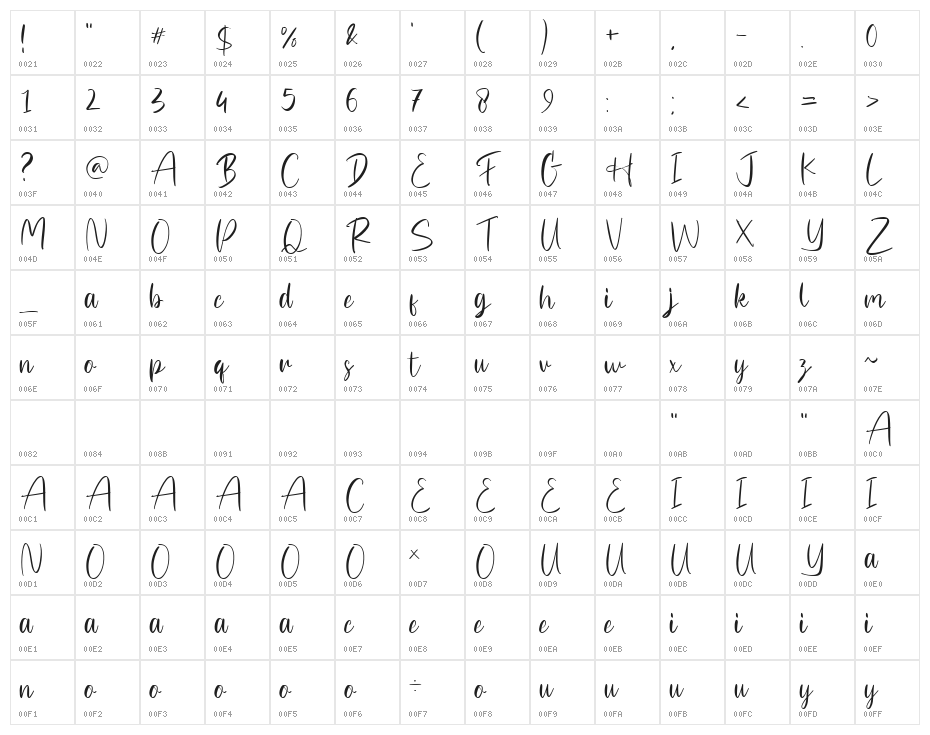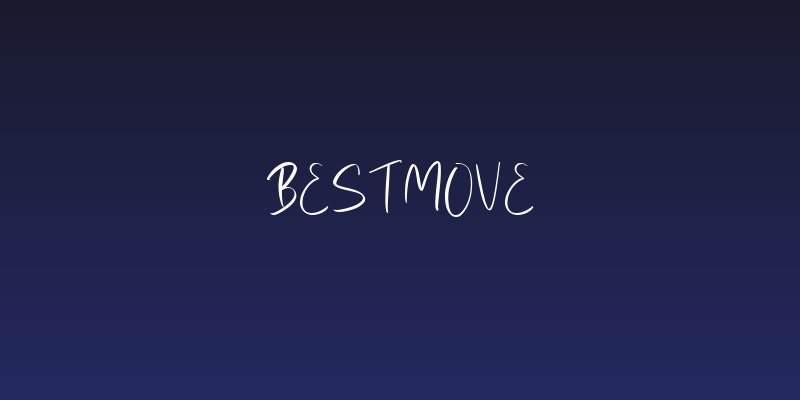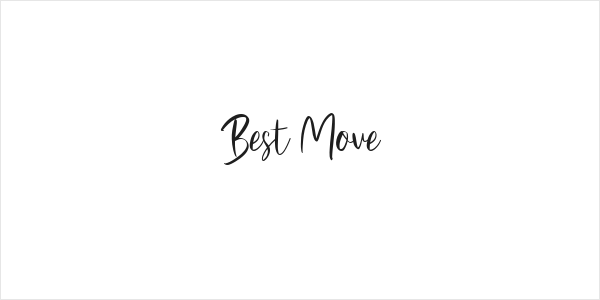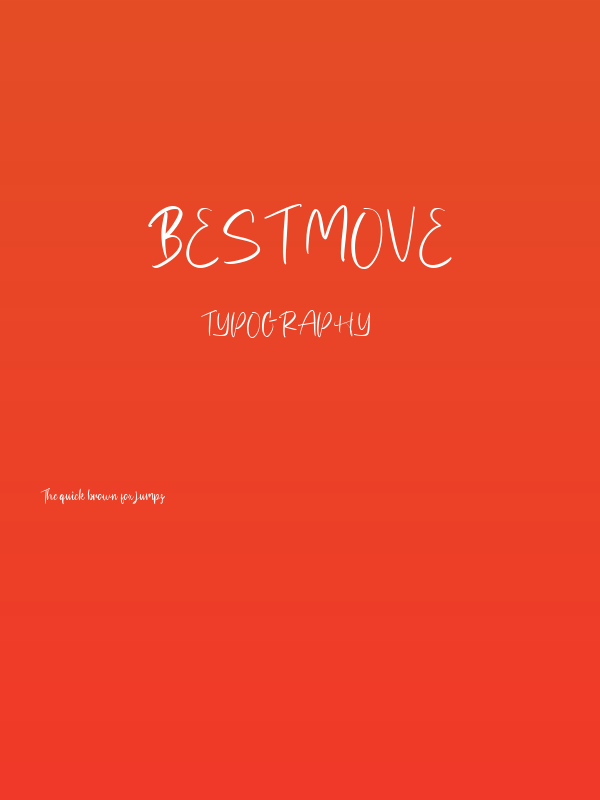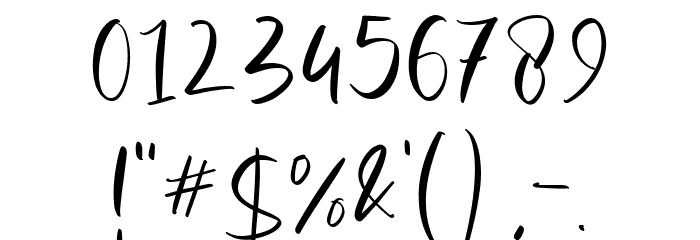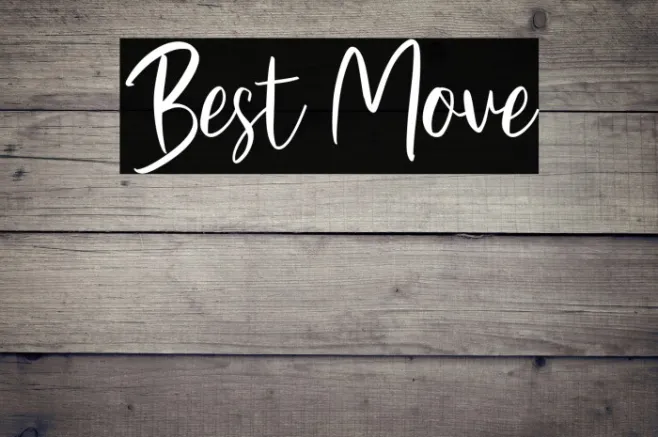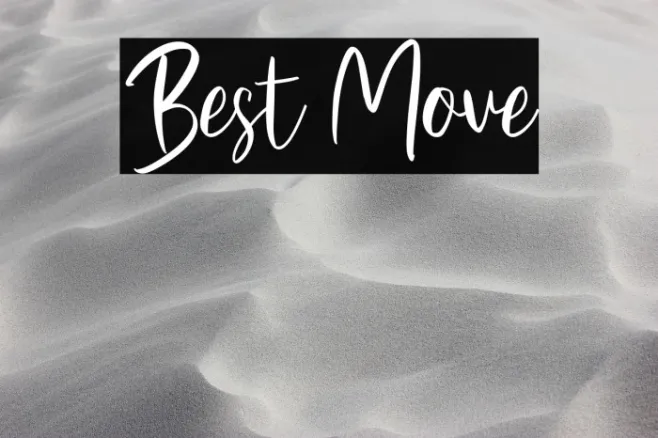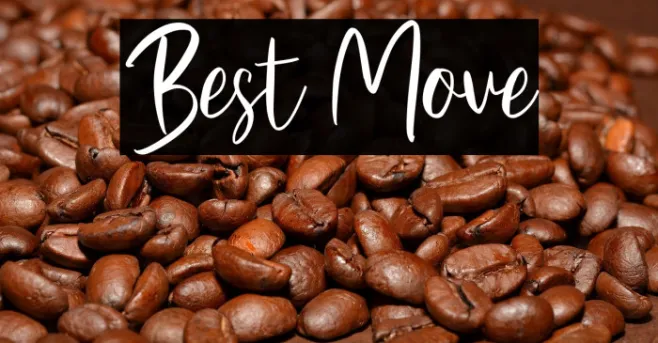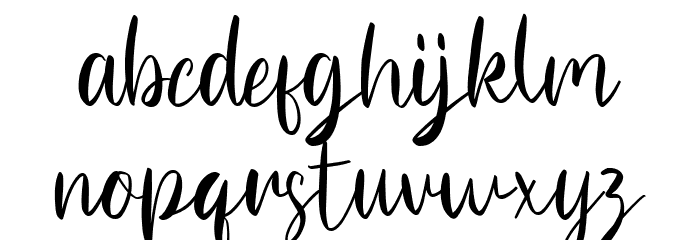
Best Move Font
Best Move Description
This font features a lively and dynamic handwritten style, characterized by its fluid and slightly irregular strokes. The uppercase letters are tall and slender, with a playful tilt that adds a sense of movement and energy. The lowercase letters maintain a consistent flow, with some characters exhibiting unique loops and curves that enhance the font's whimsical nature. The numerals are bold and clear, ensuring readability while maintaining the overall artistic flair. Special characters are crafted with the same attention to detail, seamlessly integrating into the font's cohesive design.
| Proposed Projects | Ideal for creative projects such as invitations, greeting cards, branding, and social media graphics. |